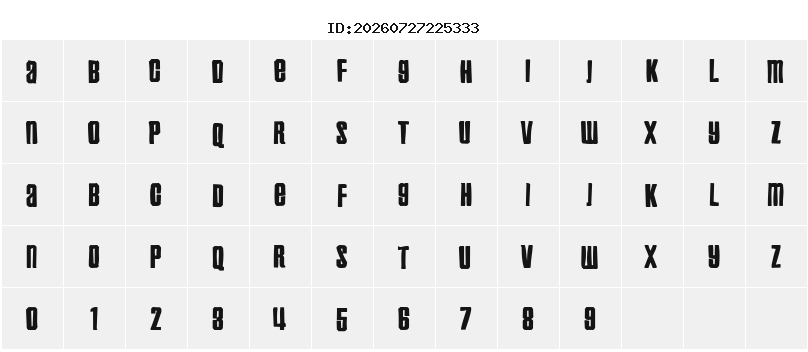
• Font Name: Inflammable Age Ink
• Full Font Name: Inflammable Age Ink
• Designer: Ray Larabie
About Inflammable Age Ink.ttf
Inflammable Age Ink.ttf is a modern, elegant sans-serif font designed for ultimate readability and visual harmony. Perfect for branding, headlines, web design, and print materials.